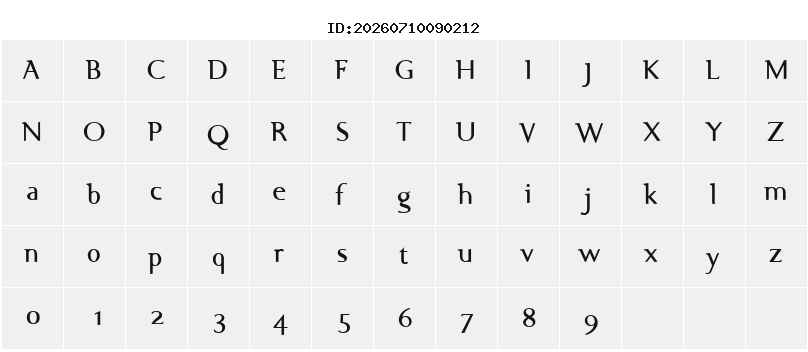
Ela Demiserif Preview
• Font Name: Ela Demiserif
• Full Font Name: Ela Demiserif Bold PDF
• PostScript Name: ElaDemiserif-Bold
• Manufacturer: Gert Wiescher, Wiescher-Design, Munich, Germany, www.wiescher-design.de
About Ela Demiserif.ttf
Ela Demiserif.ttf is a modern, elegant sans-serif font designed for ultimate readability and visual harmony. Perfect for branding, headlines, web design, and print materials.